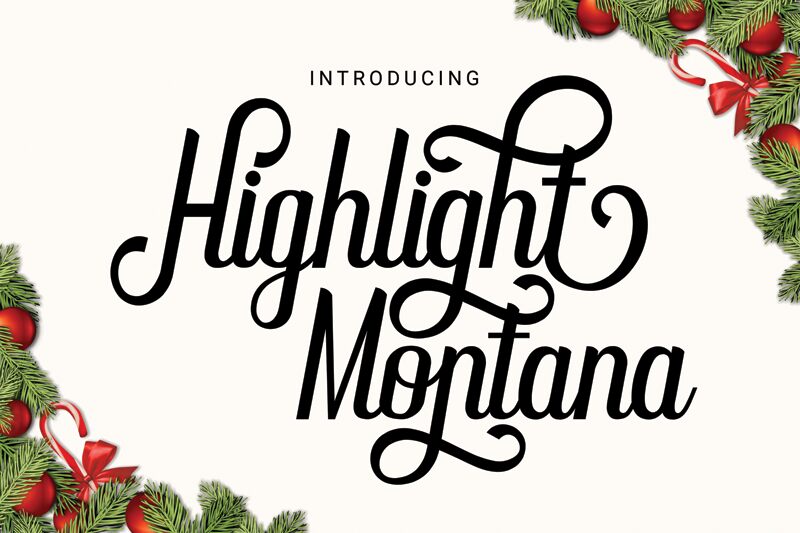
Highlight Montana Italic is a stunning calligraphic font designed by NeutroneLabs. With its delicate curves and elegant strokes, this semi-light typeface exudes sophistication and refinement. The condensed width of Highlight Montana Italic makes it perfect for projects that require a sleek and modern look, such as fashion magazines, luxury brand logos, or high-end invitations. This font is also ideal for creating eye-catching headlines, titles or captions in editorial designs, social media graphics or packaging designs. Its unique style will surely make any project stand out from the crowd.